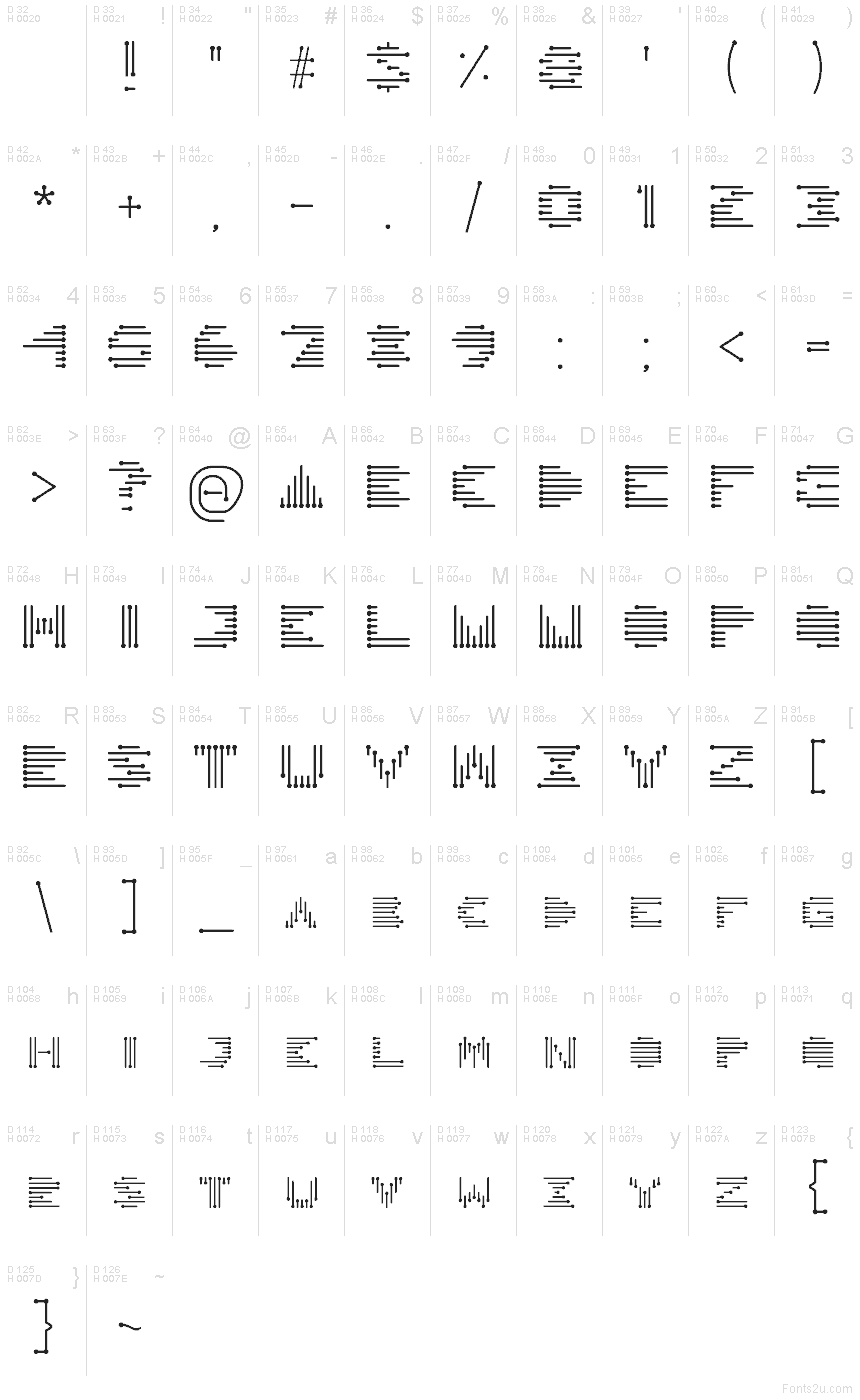
Music Volume Rounded font by Galih Nugroho is a free techno display typeface. Part of the Music Volume family, it writes with stacks of rounded bars that echo equalizer meters and sound waves, giving every word a pulsing, modular rhythm. The strokes feel slick and tactile-like glossy faders-so headlines read with a steady beat and a clean, futuristic warmth rather than cold circuitry.
Using Music Volume Rounded, you can brand DJ flyers, album covers, festival posters, streaming banners, nightclub signage, and motion graphics with instant audio energy. The spacing holds together at larger sizes, where the bar patterns really sing. For balance, pair this free font with a quiet geometric sans for body text, and keep generous line spacing to let the “volume” breathe.